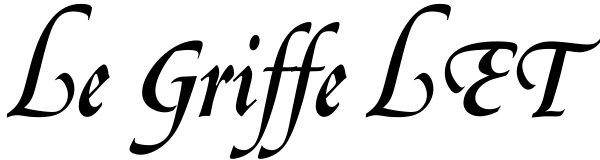
Le Griffe
This superb calligraphic script style effectively evokes the skilled penmanship of free-flowing calligraphy. Le Griffe includes capitals for initialling that enhance the lowercase, plus many swash letters and characters designed to begin and end...